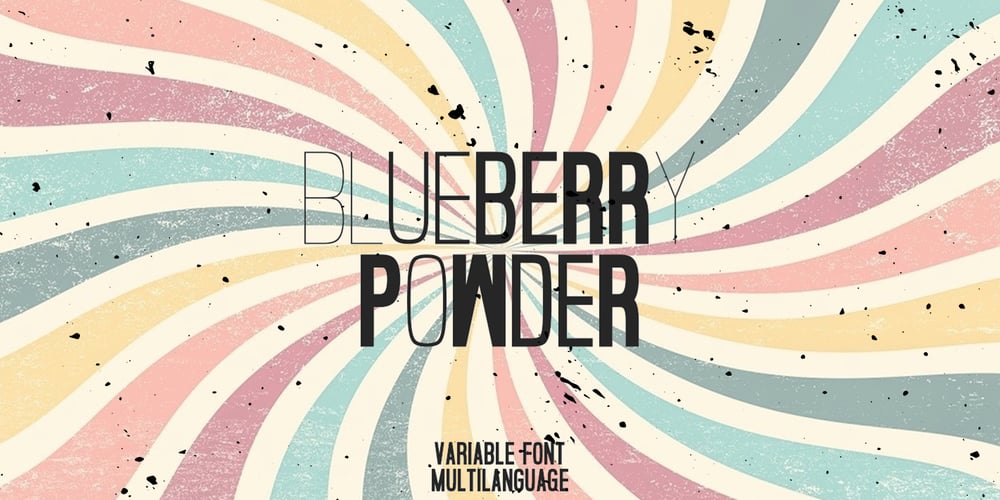
Blueberry Powder Variative Font Family was designed by Oksana Shudegova and published by OKSHUtypeCO. Blueberry Powder Variative contains 1 styles and family package options. Blueberry Powder Variable – variable font, support multilanguage. brand, trend, cards, etc.Very suitable for greeting cards, branding materials, business cards, quotes, posters, and more!This font are perfect for wedding postcard. Or you can create perfect and unique design of your logo, blog, stationery, marketing, magazines and more ๐